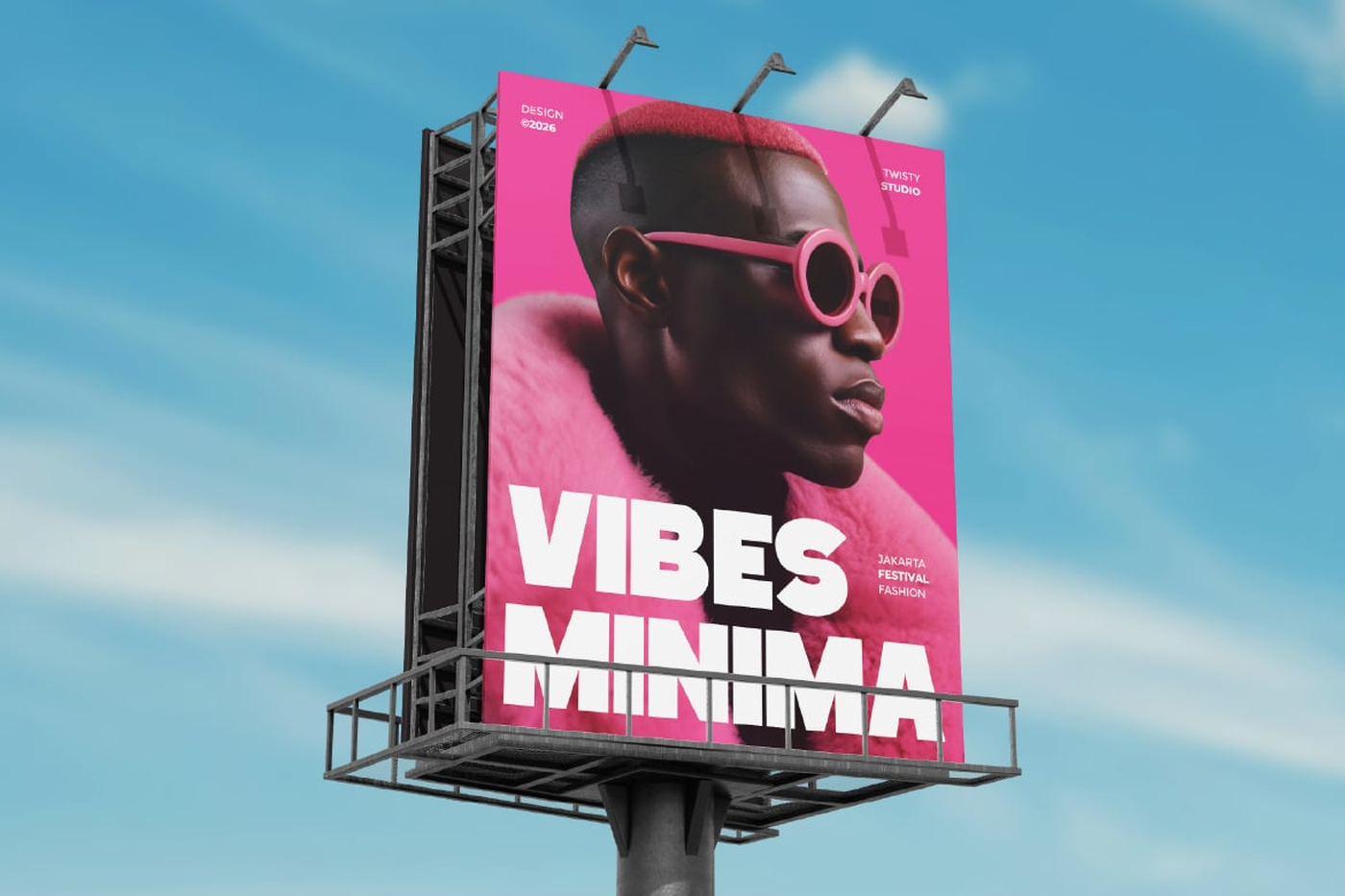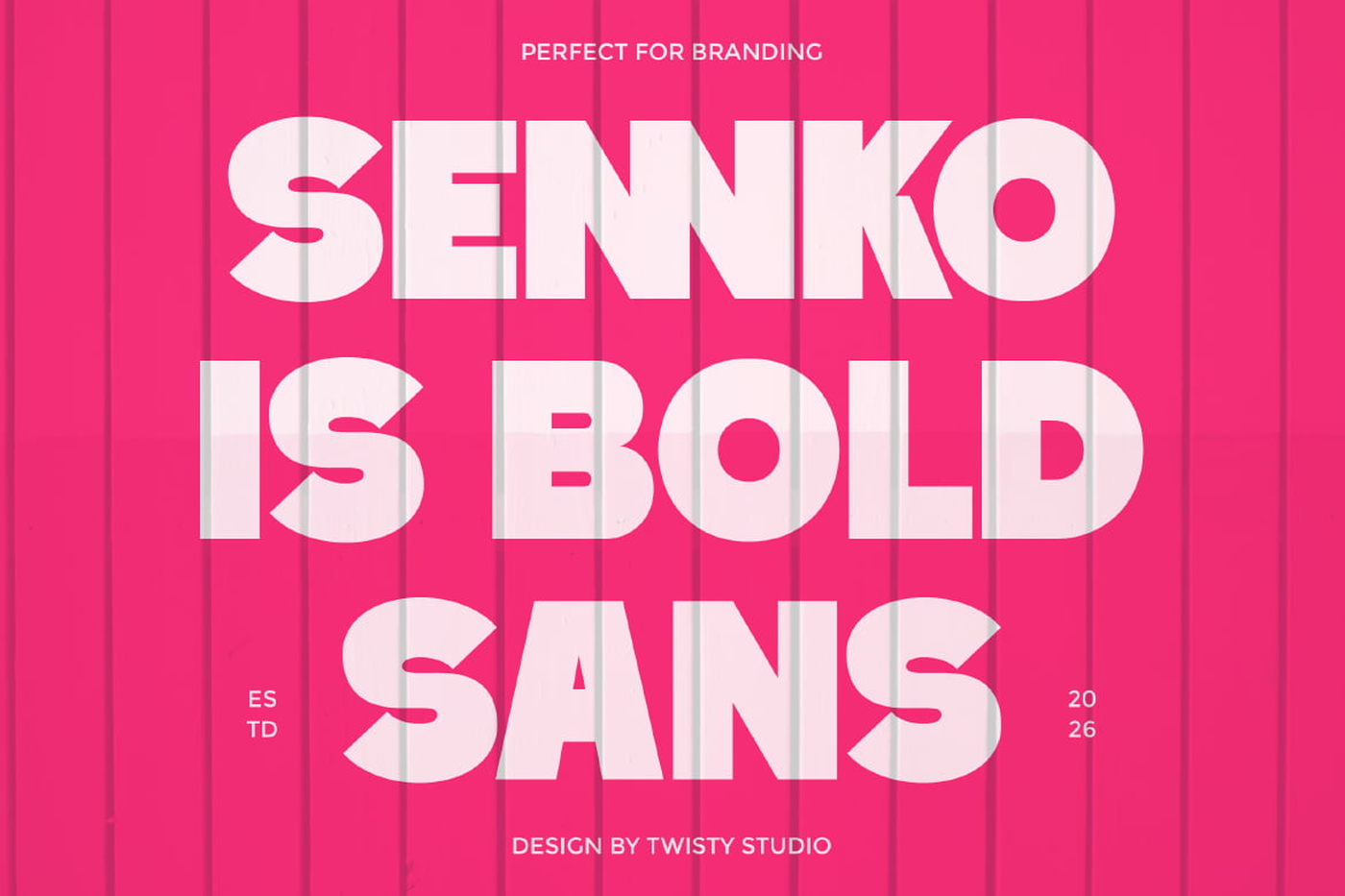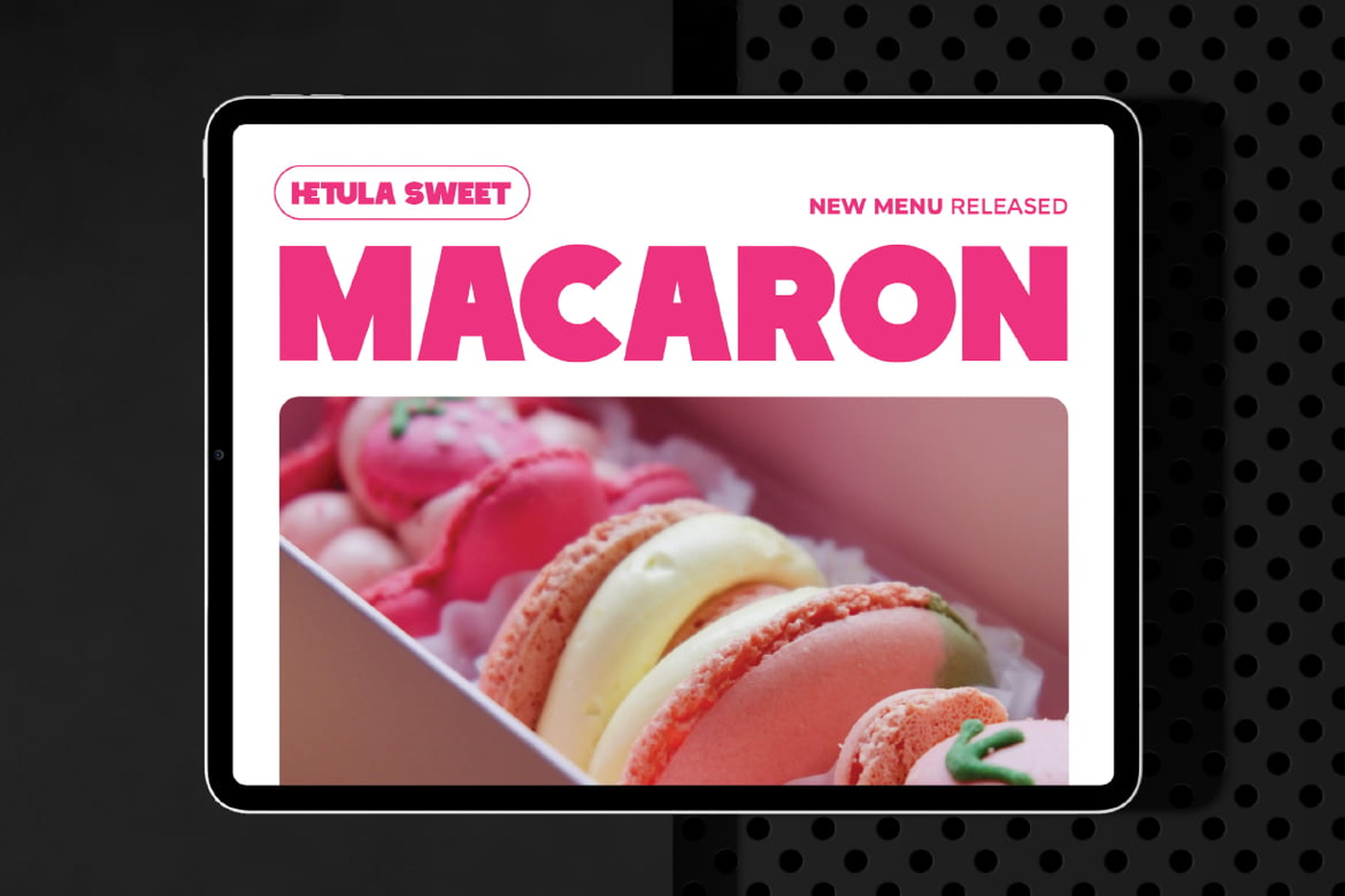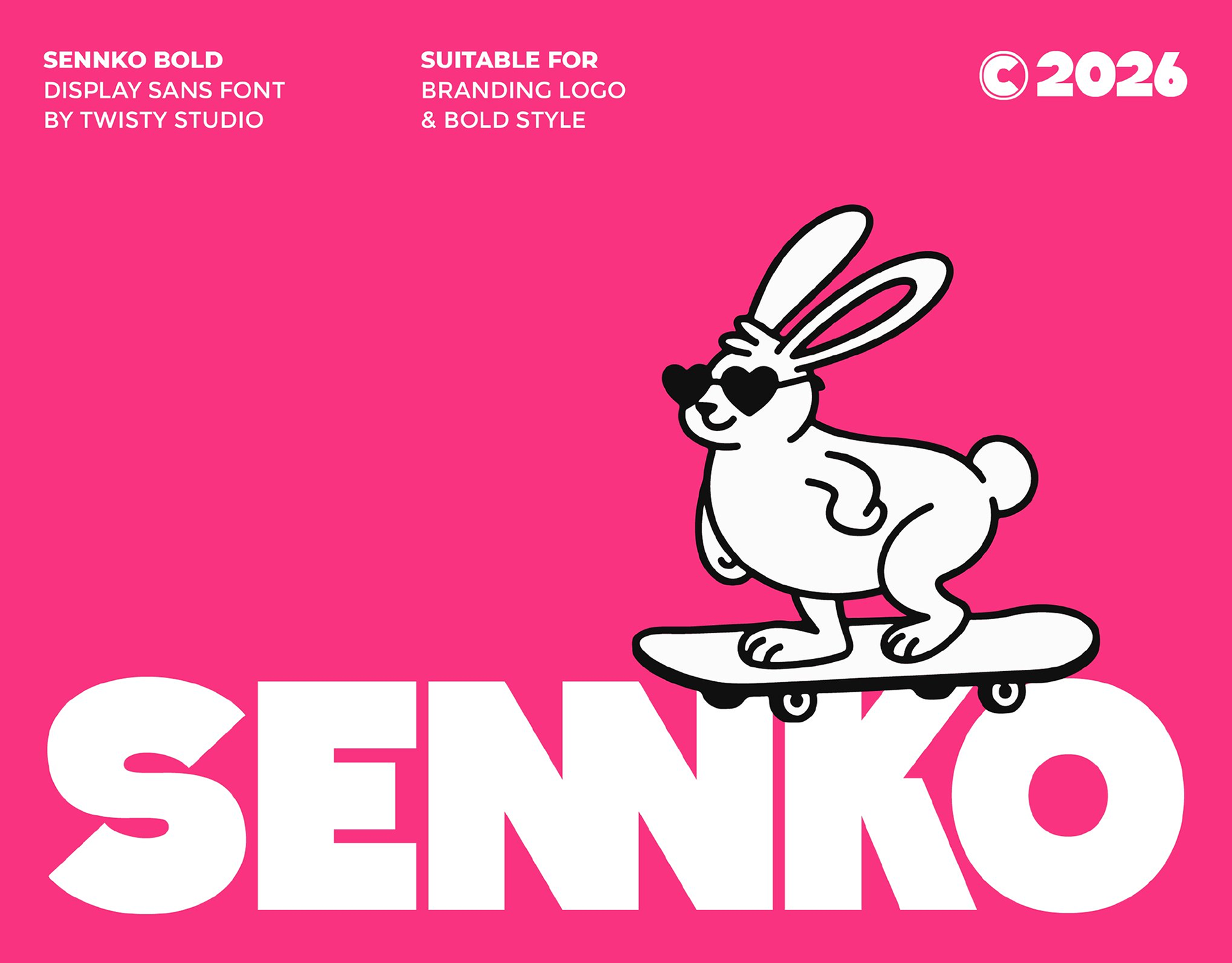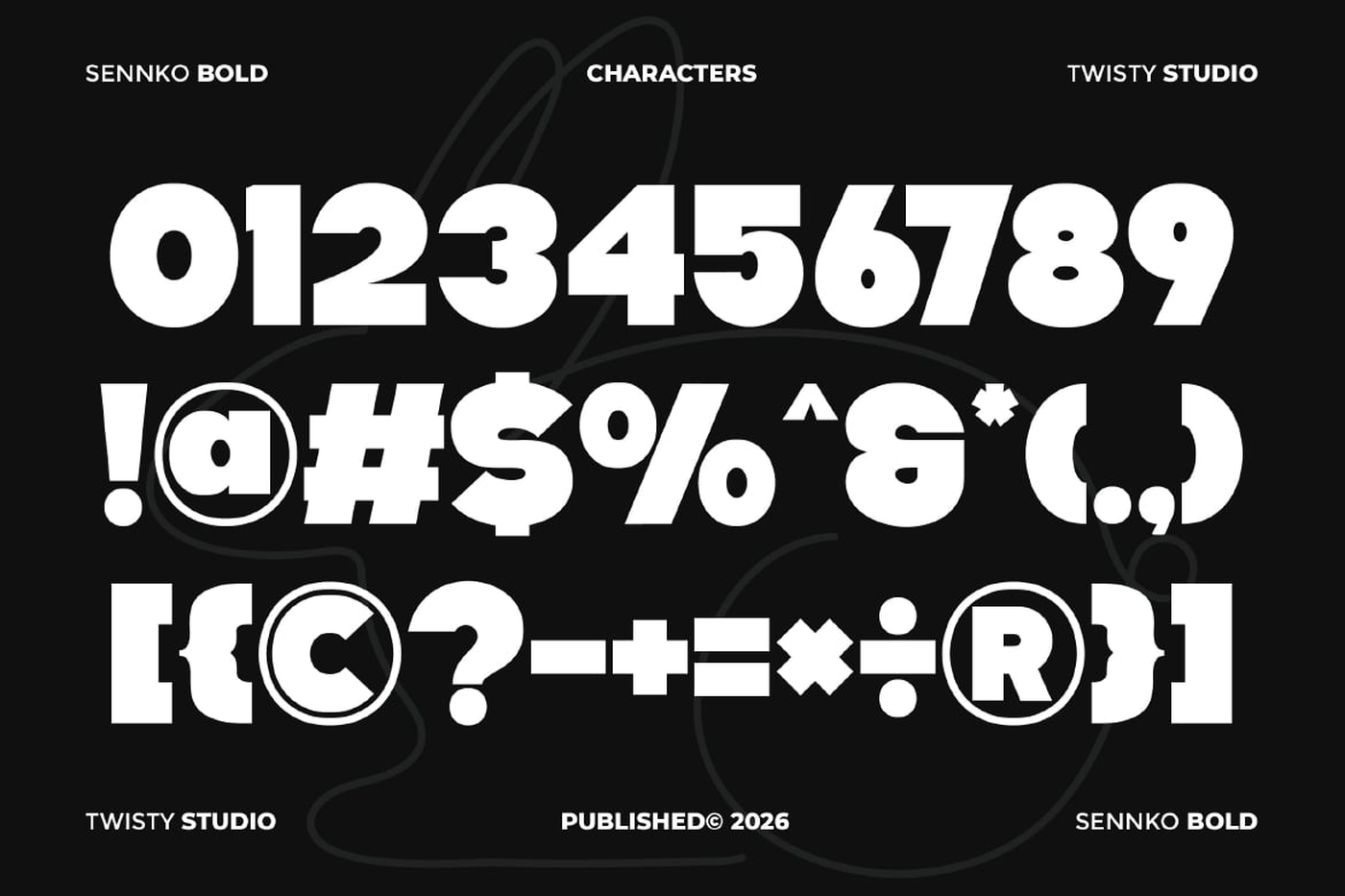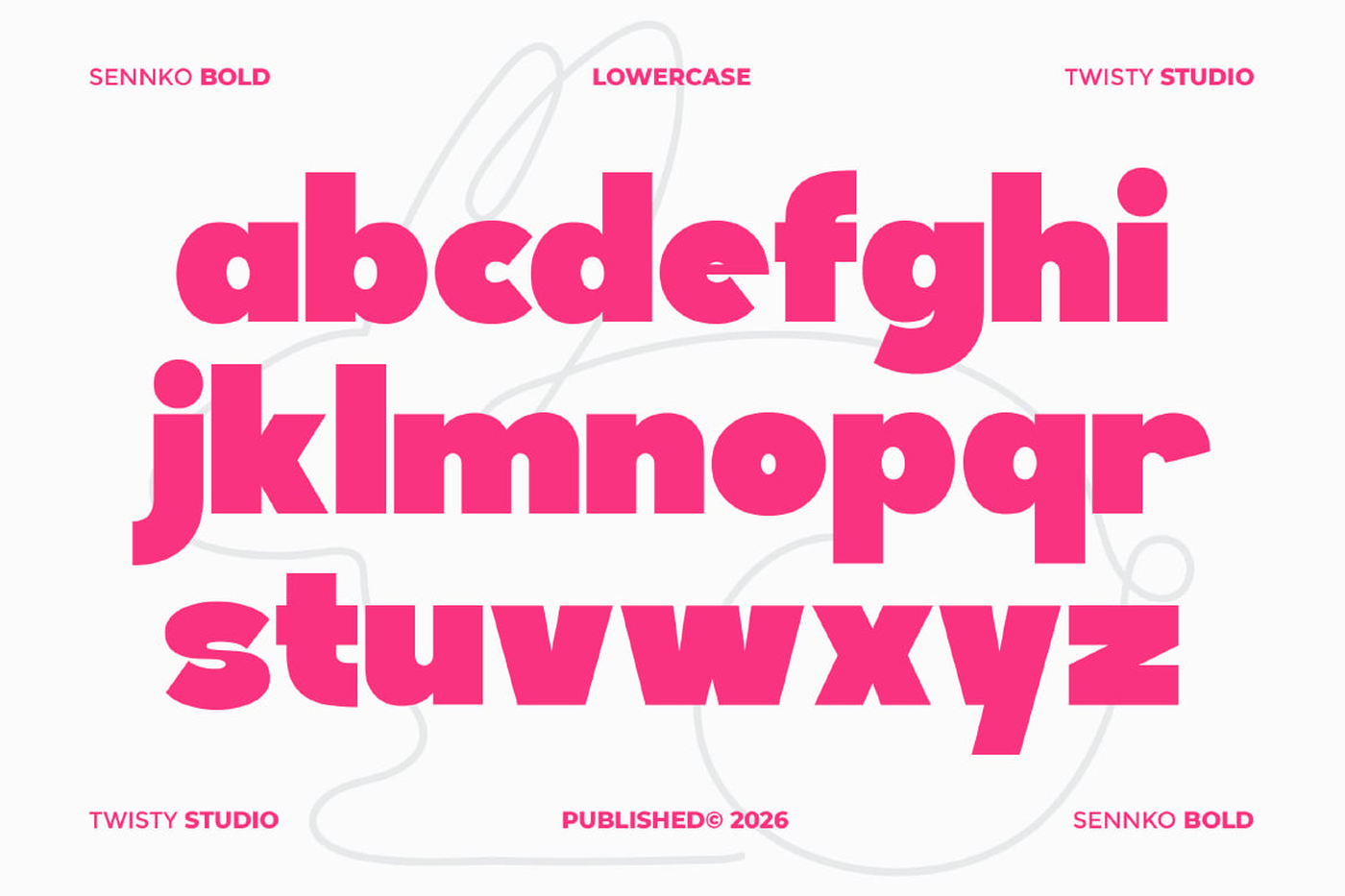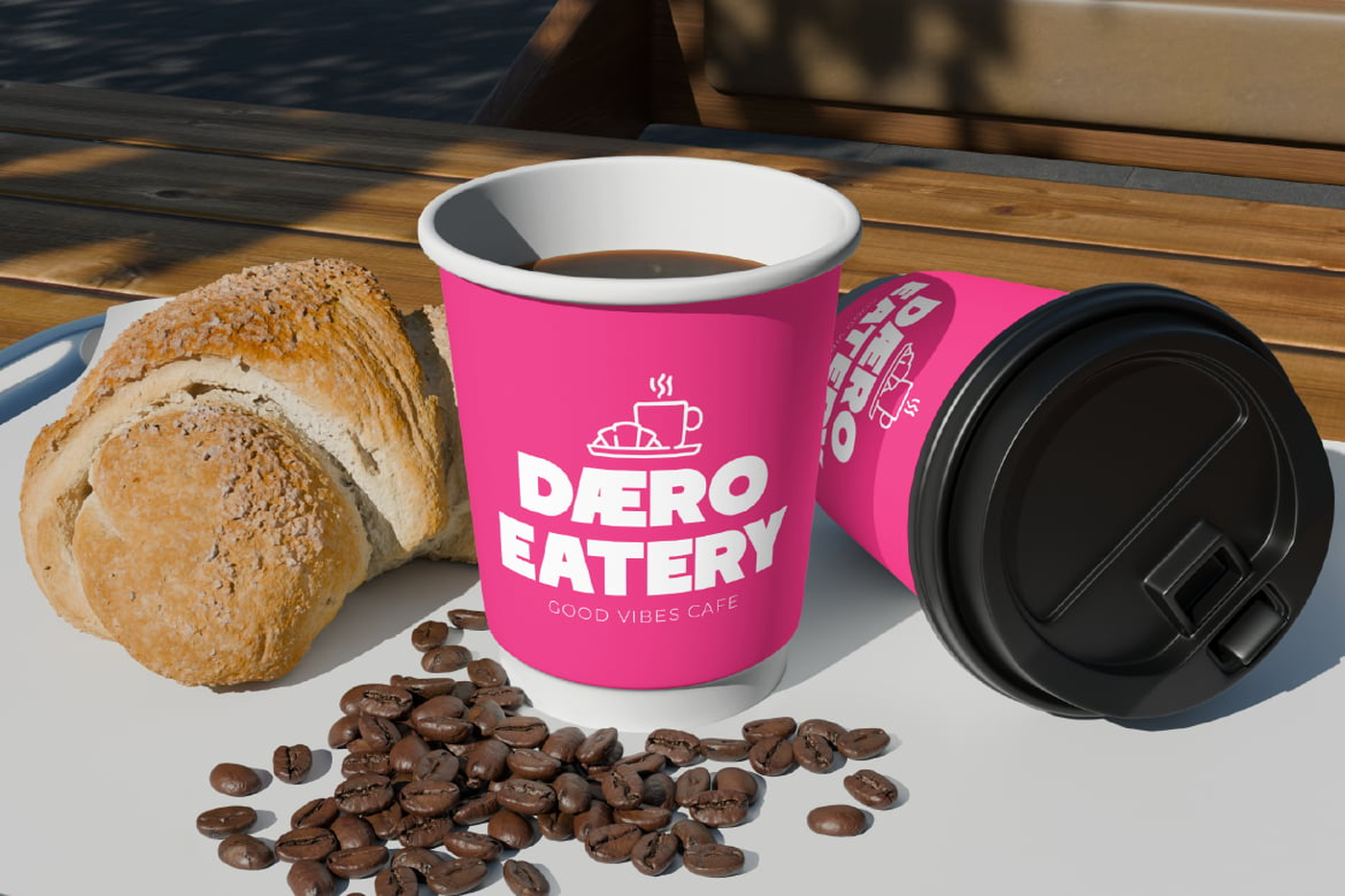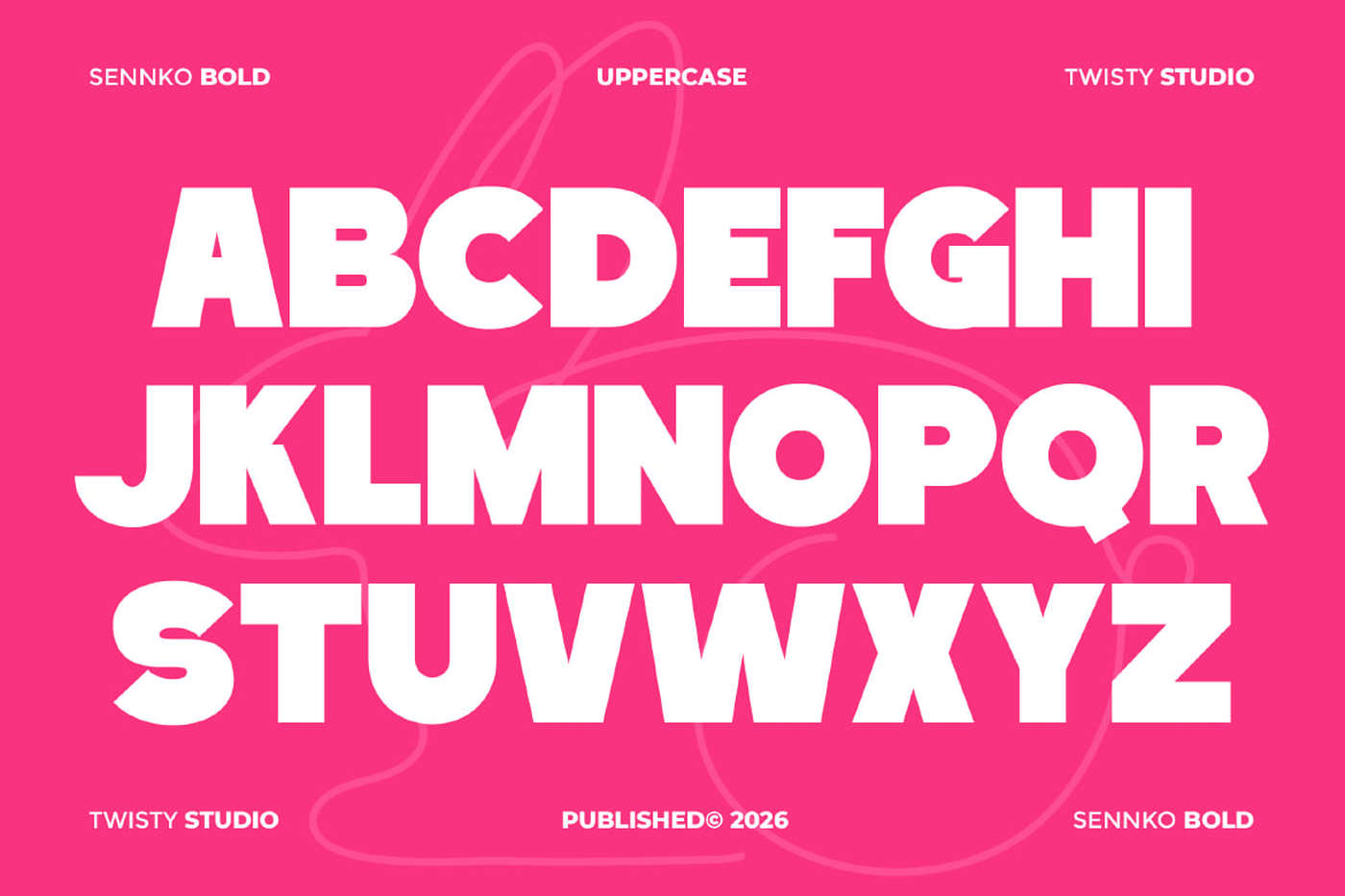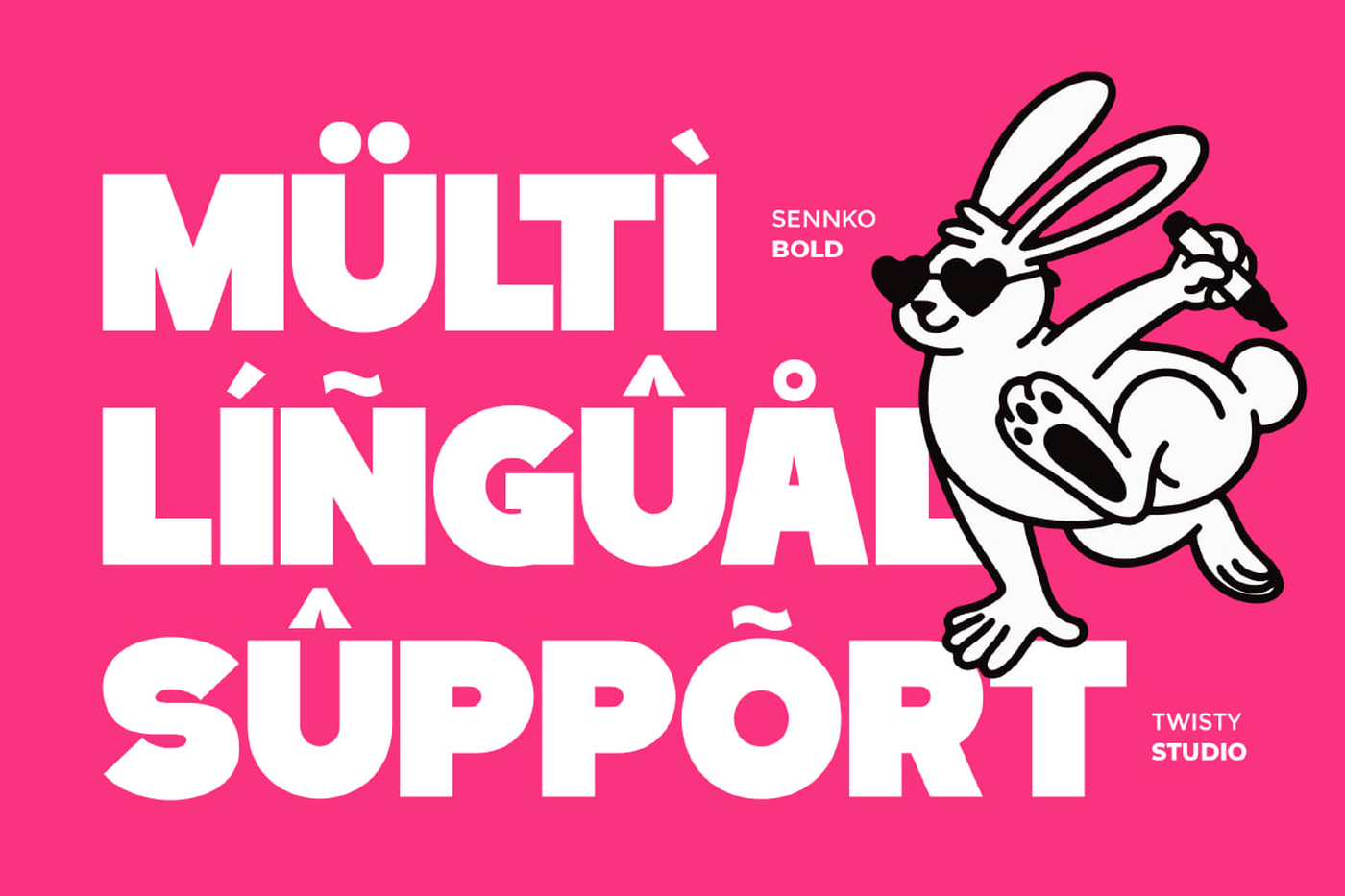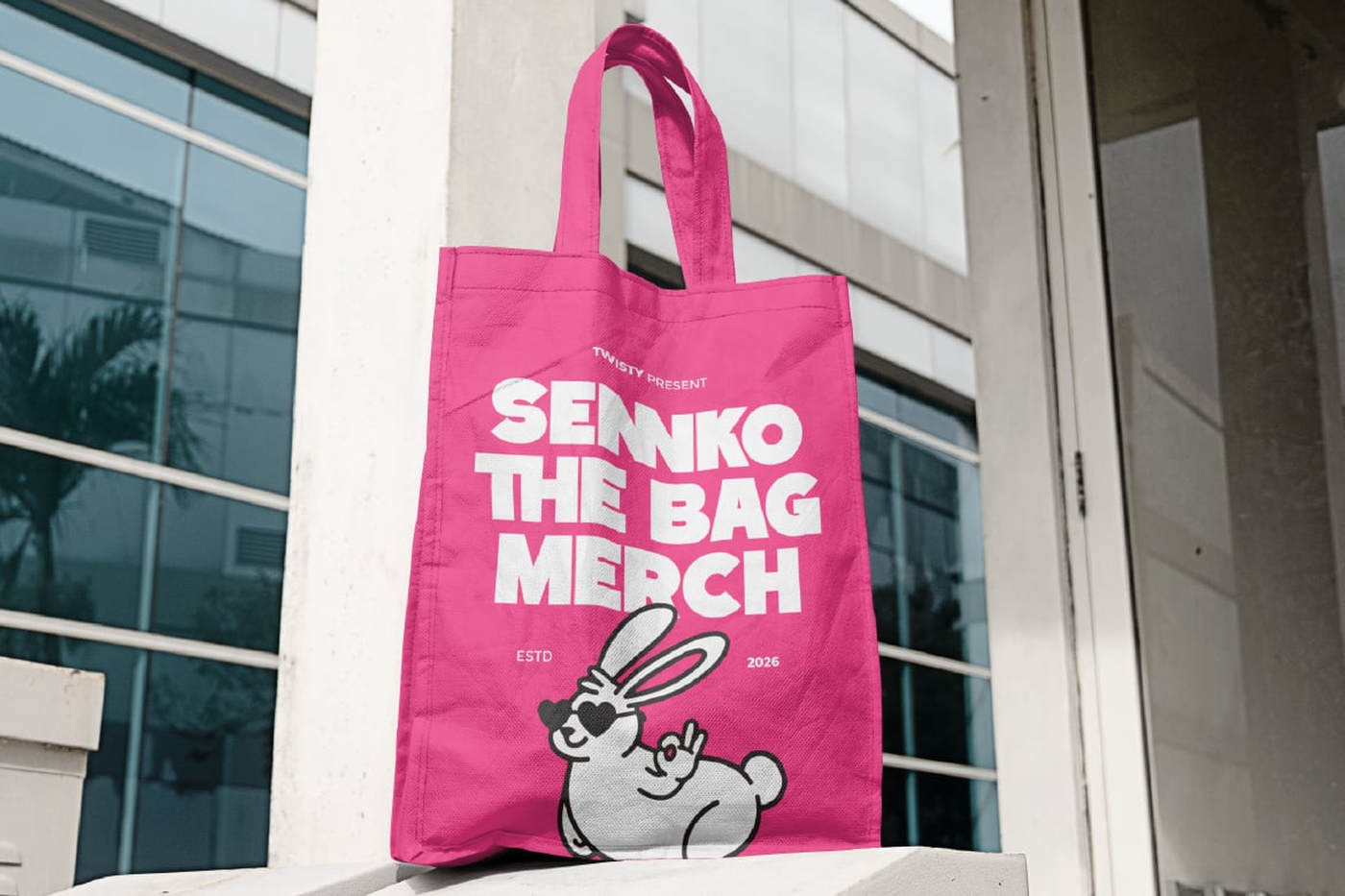
Sennko - Bold Display Sans Font
Sennko is a bold display sans font designed to deliver strong visual impact with a clean and modern approach. Featuring solid letterforms, balanced proportions, and a confident structure, Sennko creates a powerful presence that instantly draws attention. Built for display use, this typeface performs exceptionally well in large sizes where clarity and boldness are essential. Its clean sans serif foundation ensures readability, while the bold weight adds emphasis and strength to every word.
Designer: Twisty .std
Font: Sennko